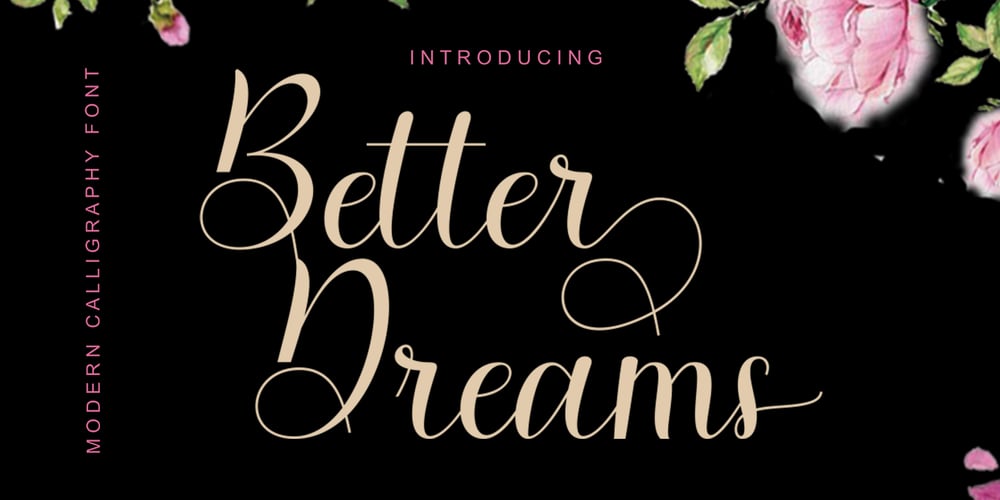
Better Dreams
Better Dreams font
Better Dreams Font Family was designed by Saiful and published by Encolab. Better Dreams contains 1 styles and family package options. Better Dreams is a modern handwritten font with handwritten suitable for logo, product packaging, branding, headlines, labels, book covers, posters, quotes and more.This comes with ligatures and unique and beautiful alternatives as well as international support for most western languages.How to access all of the alternate characters:https://www.youtube.com/watch?v=XzwjMkbB-wQBetter Dreams is coded with PUA Unicode, which allows full access to all the extra characters without having special designing software. Mac users can use Font Book , and Windows users can use Character Map to view and copy any of the extra characters to paste into your favourite text editor/app.How to access all alternative characters, using Windows Character Map with Photoshop:https://www.youtube.com/watch?v=Go9vacoYmBwThanks & Happy Designing!